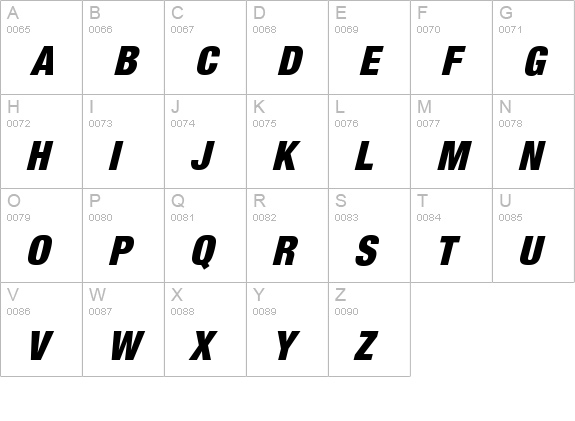
Olnova-HeavyCondIta font is a bold and impactful typeface that exudes strength and modernity. With its condensed design and heavy weight, this font is perfect for making a bold statement in your designs. The sleek and sharp letterforms of Olnova-HeavyCondIta bring a sense of sophistication and professionalism to any project. What makes Olnova-HeavyCondIta even more appealing is that it is available for free download at FontsMarket.com. This means that you can easily access and use this impressive font in your creative endeavors without any cost. Whether you're designing a logo, poster, or website, Olnova-HeavyCondIta provides a versatile and eye-catching option to elevate your work. Download Olnova-HeavyCondIta today and add a touch of contemporary style to your designs.